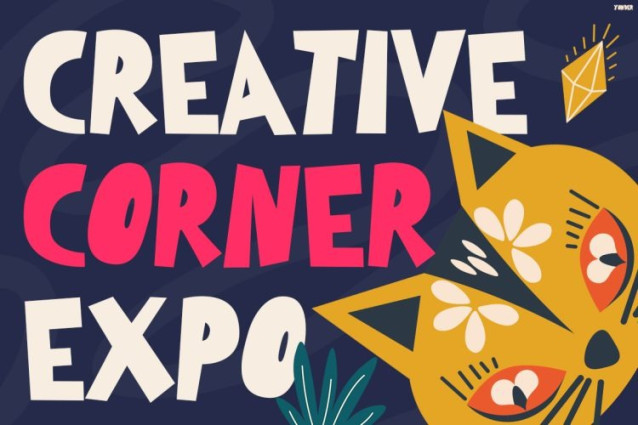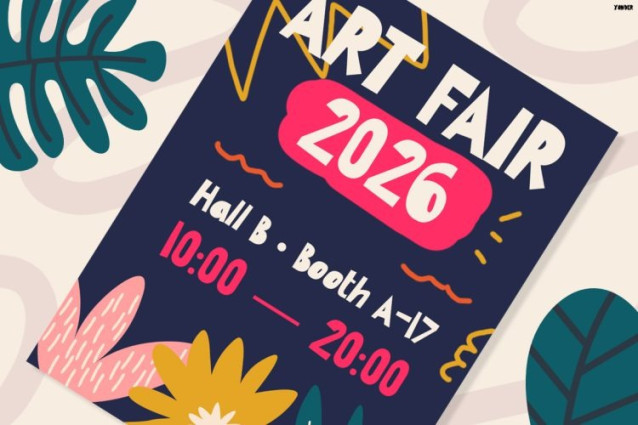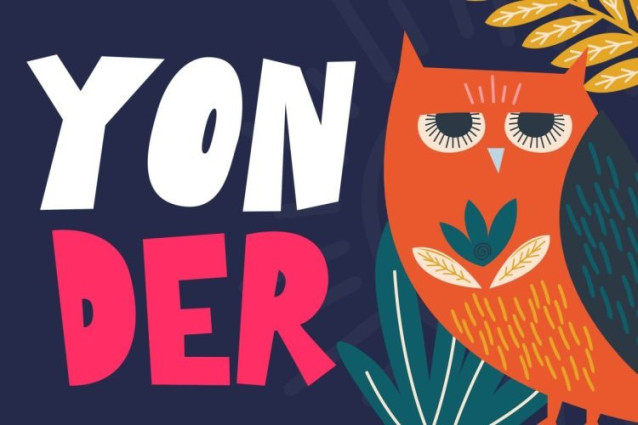
Yonder Font
Yonder Font is a cheerful display font designed to transform ordinary designs into colorful stories filled with creativity and wonder. Not only does it feature bold hand-drawn letterforms, but it also showcases quirky curves and playful shapes that create a unique artistic personality. Moreover, its imperfect handcrafted details give every word a warm and friendly feeling. In addition, the bold structure ensures strong readability while maintaining a fun and imaginative appearance. Furthermore, Yonder brings a magical creative energy that makes posters, branding, and promotional materials instantly more attractive. As a result, your designs become more expressive, memorable, and visually delightful. Meanwhile, its vibrant character works beautifully for projects that require a youthful, artistic, and joyful atmosphere. Therefore, Yonder is the perfect choice for designers who want to create experiences that inspire curiosity and happiness.
Kids Font Yonder For
Yonder is made for creative projects that celebrate imagination, art, and playful expression. Whether you are designing children’s brands, art exhibitions, creative workshops, school events, festival posters, educational materials, book covers, packaging, or social media campaigns, this font adds a bold and charming personality. Likewise, its handmade style gives every headline a more personal touch. Furthermore, the irregular forms create a natural artistic rhythm. Consequently, your message becomes easier to notice and more enjoyable to explore. At the same time, Yonder remains versatile enough for both digital and print applications.